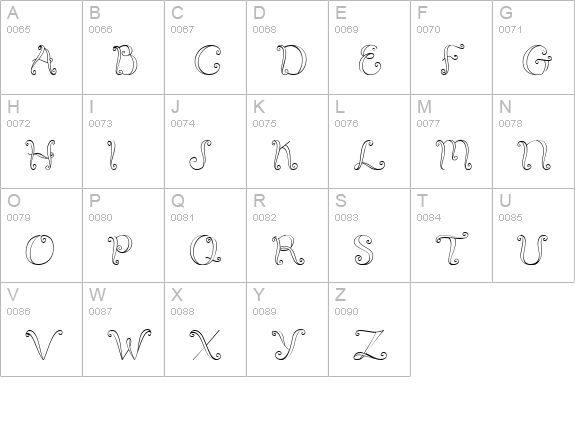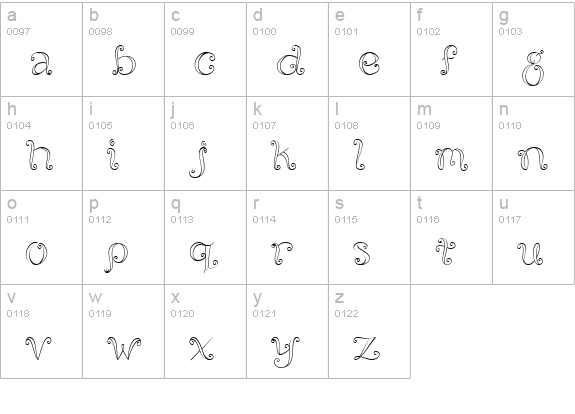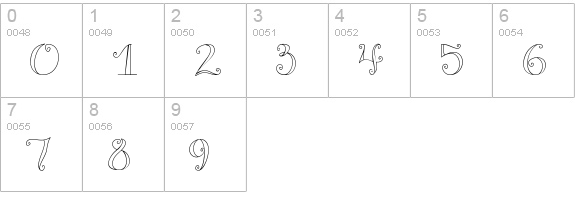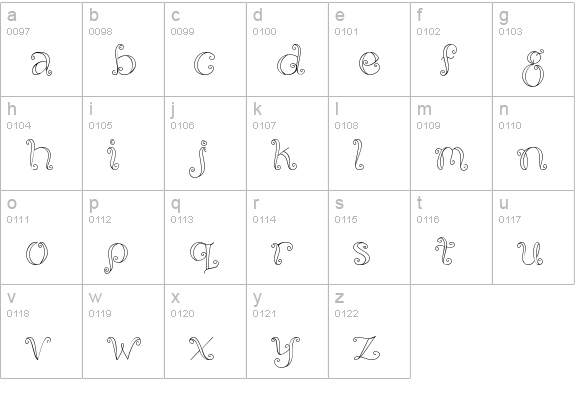
Introducing CK Swirl font, a beautifully elegant typeface that exudes sophistication and style. With its intricate swirls and delicate curves, this font is perfect for adding a touch of luxury to any design project. Whether you're creating wedding invitations, branding materials, or social media graphics, CK Swirl font will elevate your work to the next level. Best of all, CK Swirl font is completely free to download at FontsMarket.com. This means you can enhance your projects with this stunning font without having to spend a penny. So why wait? Download CK Swirl font today and start creating eye-catching designs that will leave a lasting impression.